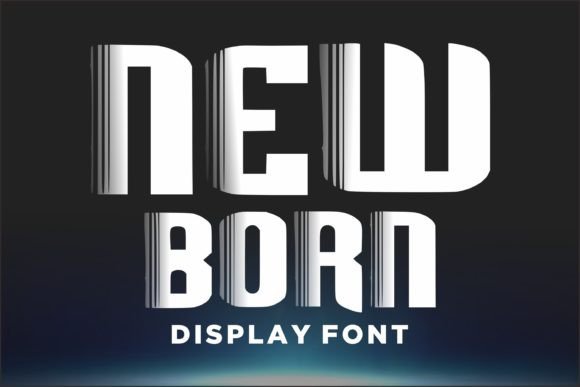
New Born: A Bold and Captivating Aesthetic Display Font
In the world of design, typography plays a crucial role in conveying messages, setting moods, and capturing attention. One font that has been gaining popularity for its boldness and aesthetic appeal is New Born. This display font is not just another typeface; it's a powerful tool that can elevate your creative projects and make them stand out. Whether you're a designer, a business owner, or someone with a passion for creativity, understanding the significance of New Born can help you harness its potential effectively.
What is New Born?
New Born is a modern, bold, and highly readable display font designed to make a statement. Its clean lines, strong structure, and unique character set give it a distinctive look that can transform any text into a visual masterpiece. Unlike traditional fonts that may blend into the background, New Born commands attention, making it ideal for headlines, logos, and other design elements where impact is key.
The font's name itself suggests a sense of freshness and new beginnings, which aligns with its visual characteristics. It’s often used in branding, marketing materials, and digital content to create a strong first impression. With its ability to convey energy and confidence, New Born is more than just a font—it's a design choice that speaks volumes.
Why Choose New Born?
There are several reasons why designers and creatives are turning to New Born for their projects:
By choosing New Born, you’re not just selecting a font—you’re making a design decision that can enhance the overall look and feel of your work.
The Significance of Typography in Design
Typography is more than just choosing a font; it's an essential element of visual communication. The right typeface can influence how a message is perceived, evoking emotions and guiding the viewer's attention. In this context, New Born serves as a prime example of how a well-designed font can contribute to the success of a project.
Consider the difference between a simple headline in a generic font versus one in New Born. The latter adds a layer of sophistication and strength that can make all the difference in how the audience interprets the message. This is especially important in fields like advertising, where first impressions are everything.
Moreover, typography plays a critical role in brand identity. A consistent use of a specific font across all materials helps reinforce brand recognition. For businesses, using a font like New Born can help establish a strong, memorable brand image that resonates with customers.
Practical Applications of New Born
The versatility of New Born makes it suitable for a wide range of applications. Here are some practical ways you can incorporate this font into your work:
1. Logos and Branding: Use New Born for logos, business names, and brand tags to create a bold and professional look.
2. Headlines and Titles: Apply the font to headlines, article titles, and section headers to draw attention and add visual interest.
3. Marketing Materials: Incorporate New Born into posters, flyers, and social media graphics to make your content more engaging.
4. Web Design: Utilize the font on websites, especially for navigation menus, call-to-action buttons, and featured sections.
5. Personal Projects: Experiment with New Born in personal designs, such as invitations, greeting cards, and artwork, to add a unique touch.
Whether you're working on a professional project or a personal endeavor, New Born offers a powerful way to express your ideas with style and impact.
How New Born Fits Into Modern Life
In today's fast-paced digital world, where visual content dominates, the importance of effective typography cannot be overstated. New Born aligns with the trends of modern design by combining boldness with clarity, making it a valuable asset in various aspects of life.
For instance, in the realm of education, teachers and educators can use New Born to create visually appealing presentations, handouts, and learning materials that capture students' attention. Similarly, in technology, app developers and UI designers might choose New Born for interface elements that require both readability and visual appeal.
On a personal level, individuals can use New Born to enhance their creative projects, such as blog posts, social media content, and digital art. By incorporating this font, they can add a professional and stylish touch to their work, making it more engaging and impactful.
Common Misconceptions About Display Fonts
Despite their many benefits, display fonts like New Born are sometimes misunderstood. Some people assume that they are only suitable for large-scale projects or that they are too flashy for everyday use. However, this is not the case.